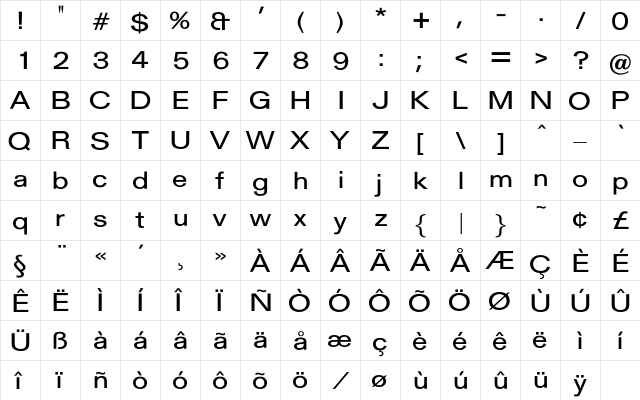
JerseyMediumExpanded Regular
Design Context for JerseyMediumExpanded Typeface
JerseyMediumExpanded has the bold swagger of sports branding: strong, assertive letterforms designed to dominate headlines and jerseys alike.
Built for sports team identities, athletic apparel, event posters, and high-energy promotional material.
Font Pairing: Use alongside a condensed or geometric sans for supporting copy — keep the pairing bold, functional, and free of ornament.
Pro Tip: JerseyMediumExpanded thrives on contrast — try it large, bold, and tight against a clean background for maximum visual impact.